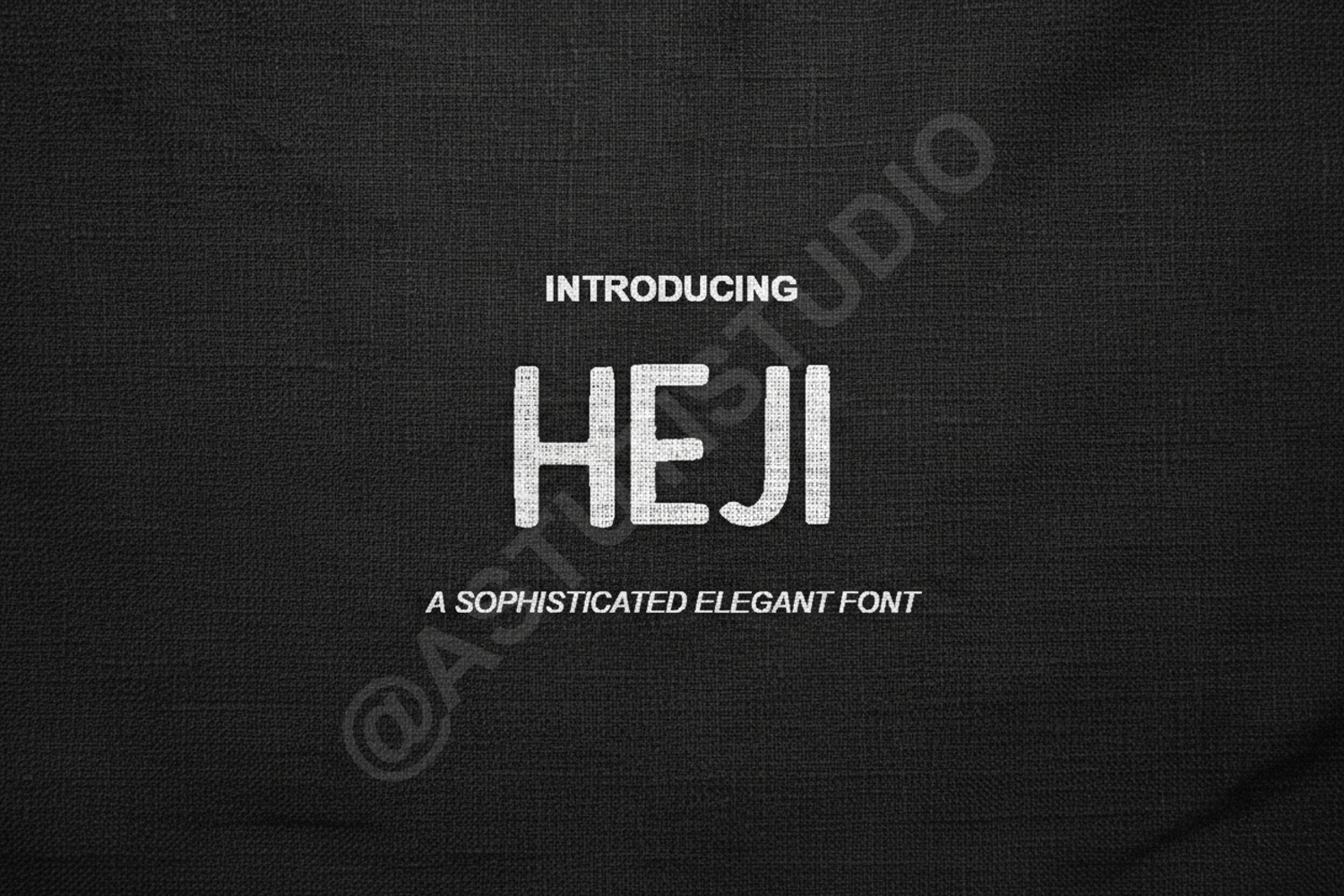
Heji - Modern Minimalist Display Font
Heji
Heji is a sophisticated and versatile display font that blends modern minimalism with timeless elegance. Designed with clean lines and a balanced structure, this typeface is perfect for designers looking to elevate their projects with a touch of luxury and professional flair. Whether you are working on a high-end fashion brand or a sleek tech startup, Heji provides the aesthetic flexibility needed to stand out.
- Branding and Identity: Create memorable logos and cohesive corporate identities.
- Editorial Design: Perfect for striking magazine headlines and sophisticated book covers.
- Luxury Packaging: Enhance the visual appeal of premium products and cosmetics.
- Wedding Stationery: Add a modern touch to invitations, menus, and place cards.
- Social Media: Design high-impact quotes and elegant promotional graphics.